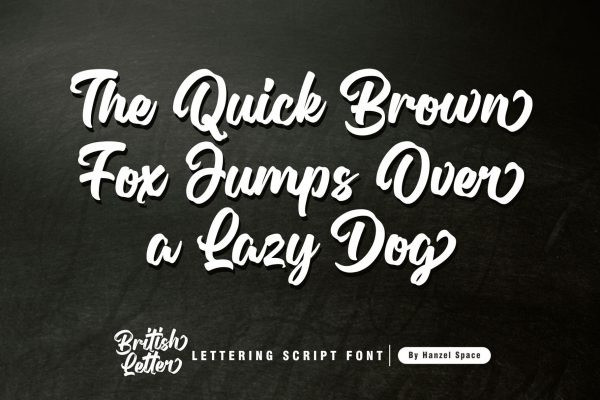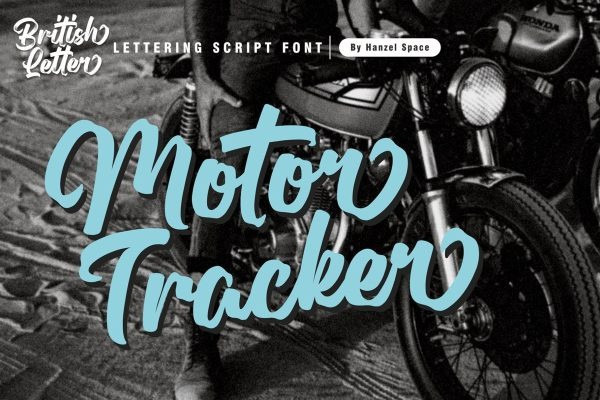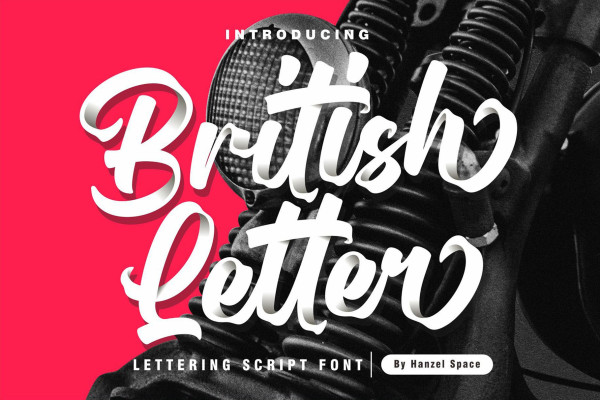
British Letter Font
British Letter Font, a Lettering Script, Inspired by brush lettering style typography. This font is perfect for designs which makes it more interesting and fun. We designed this font in such a way that it is suitable when used for design projects so that it looks very attractive. And you can also use this font for logos, branding, brochures, names on product packaging and so on.